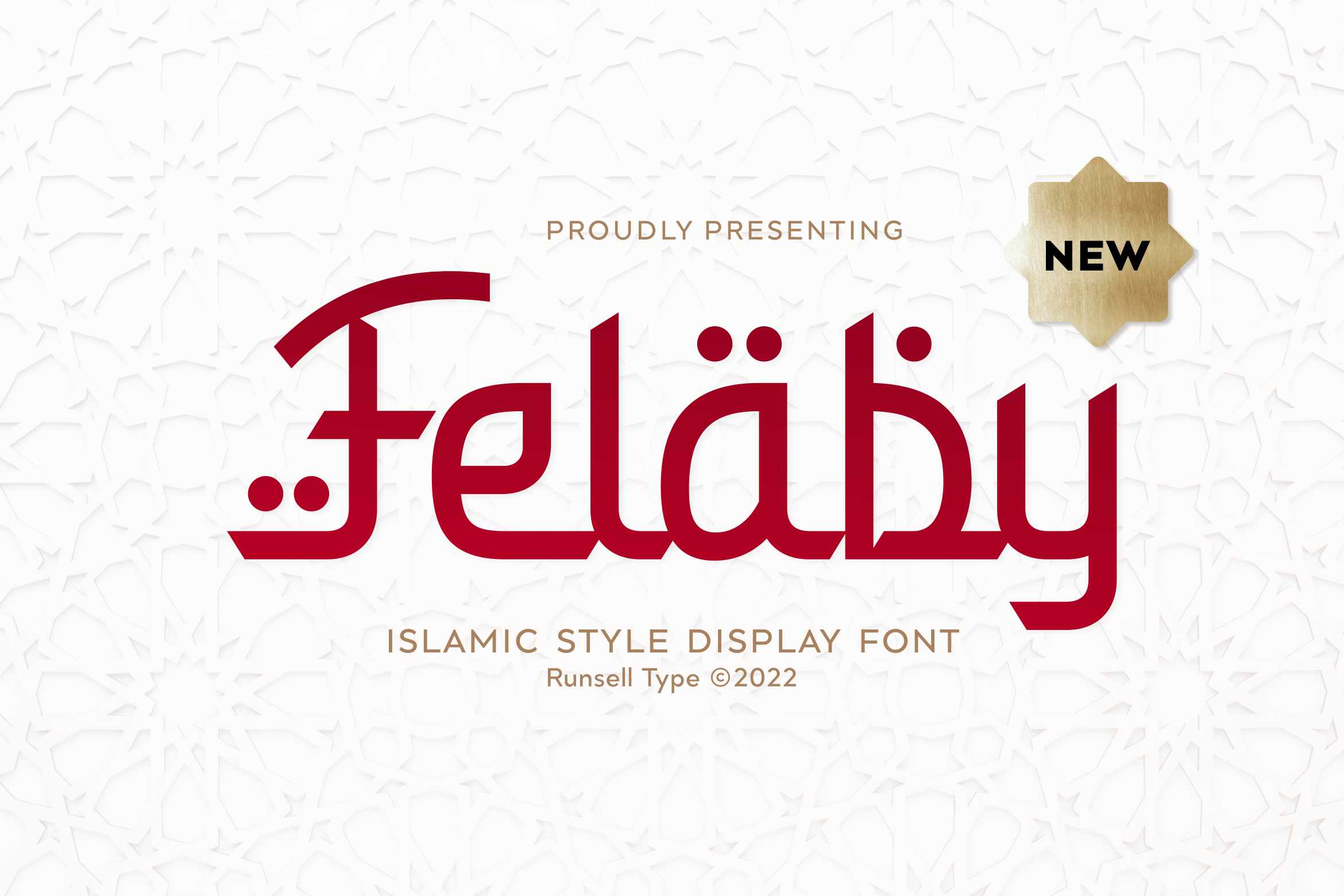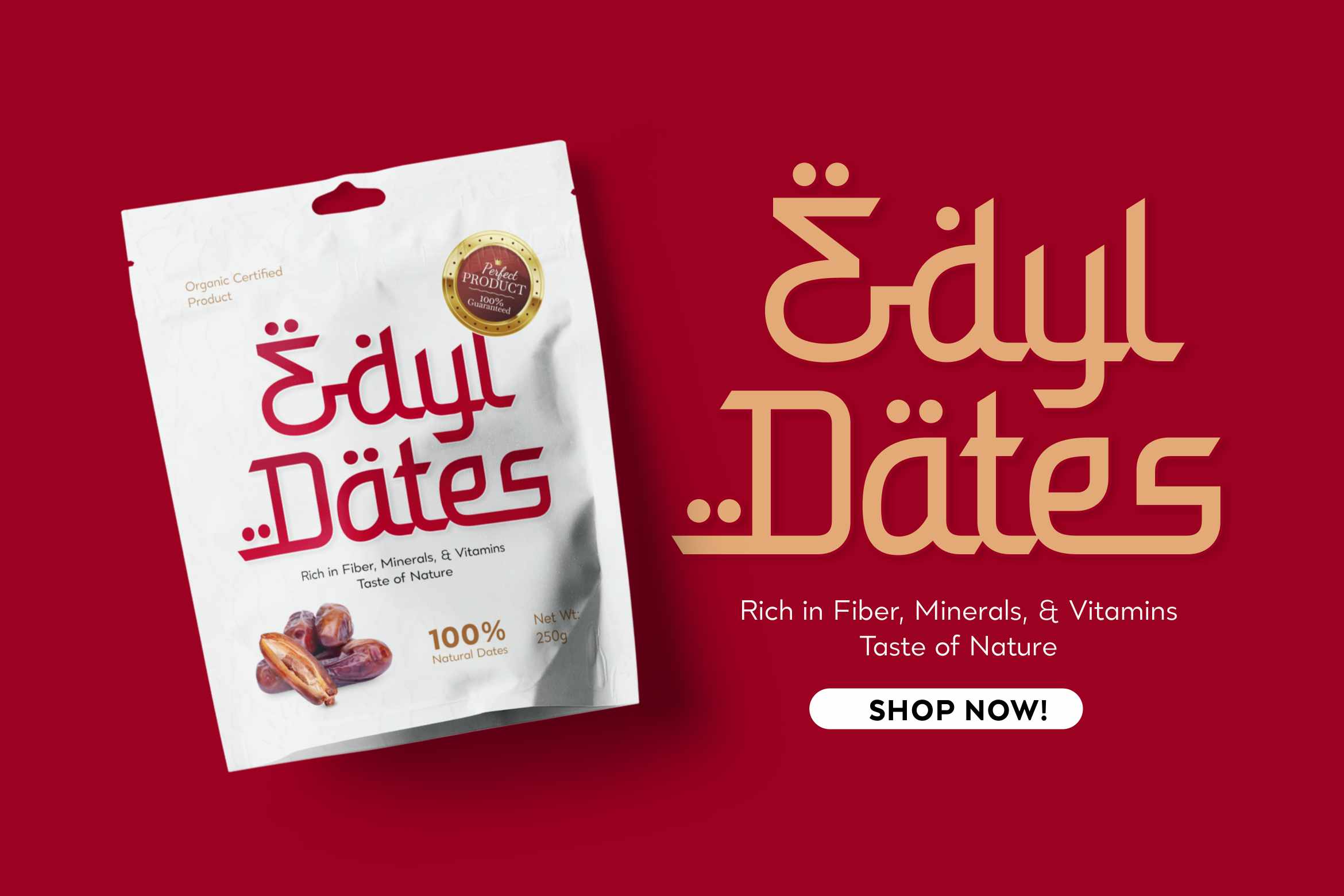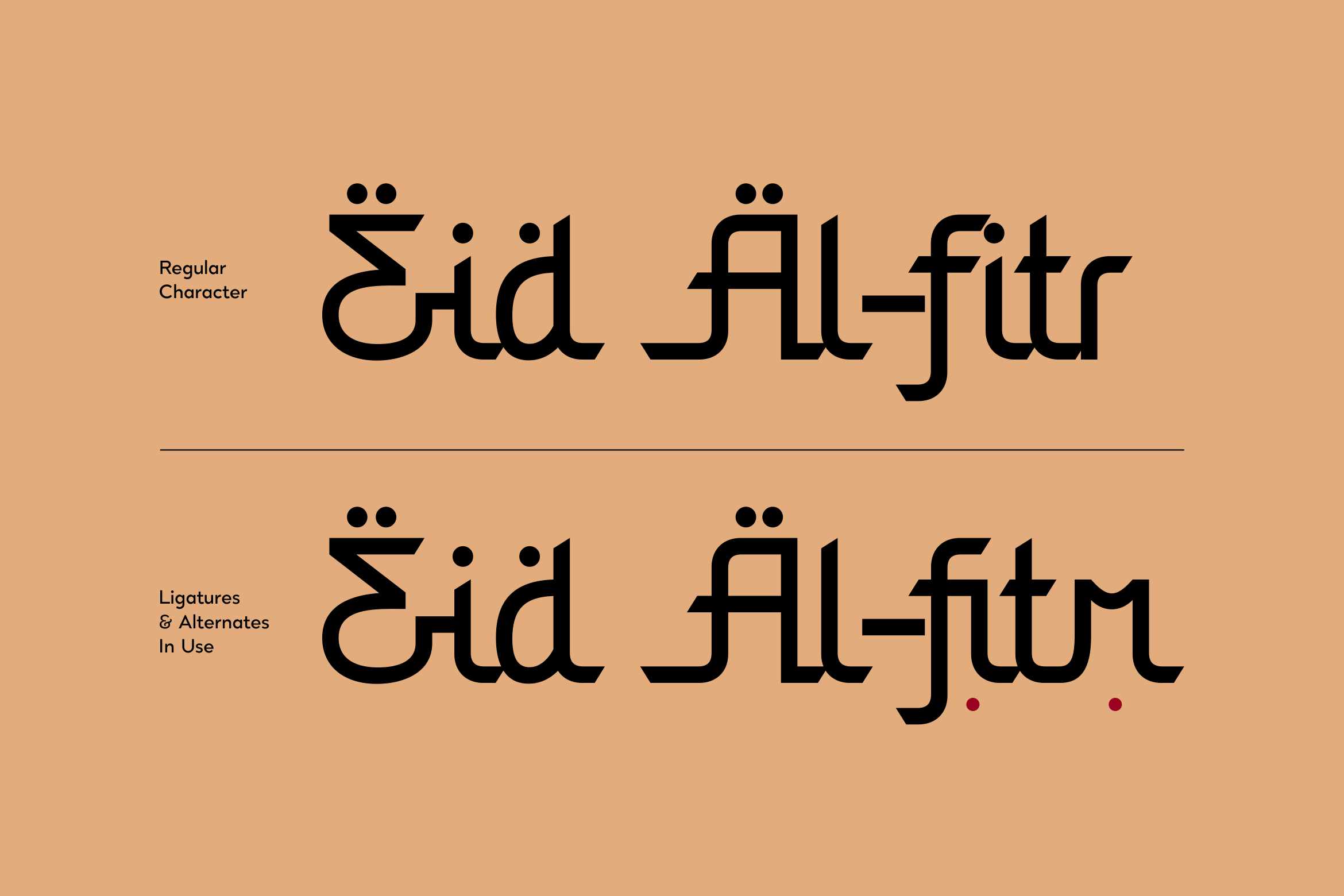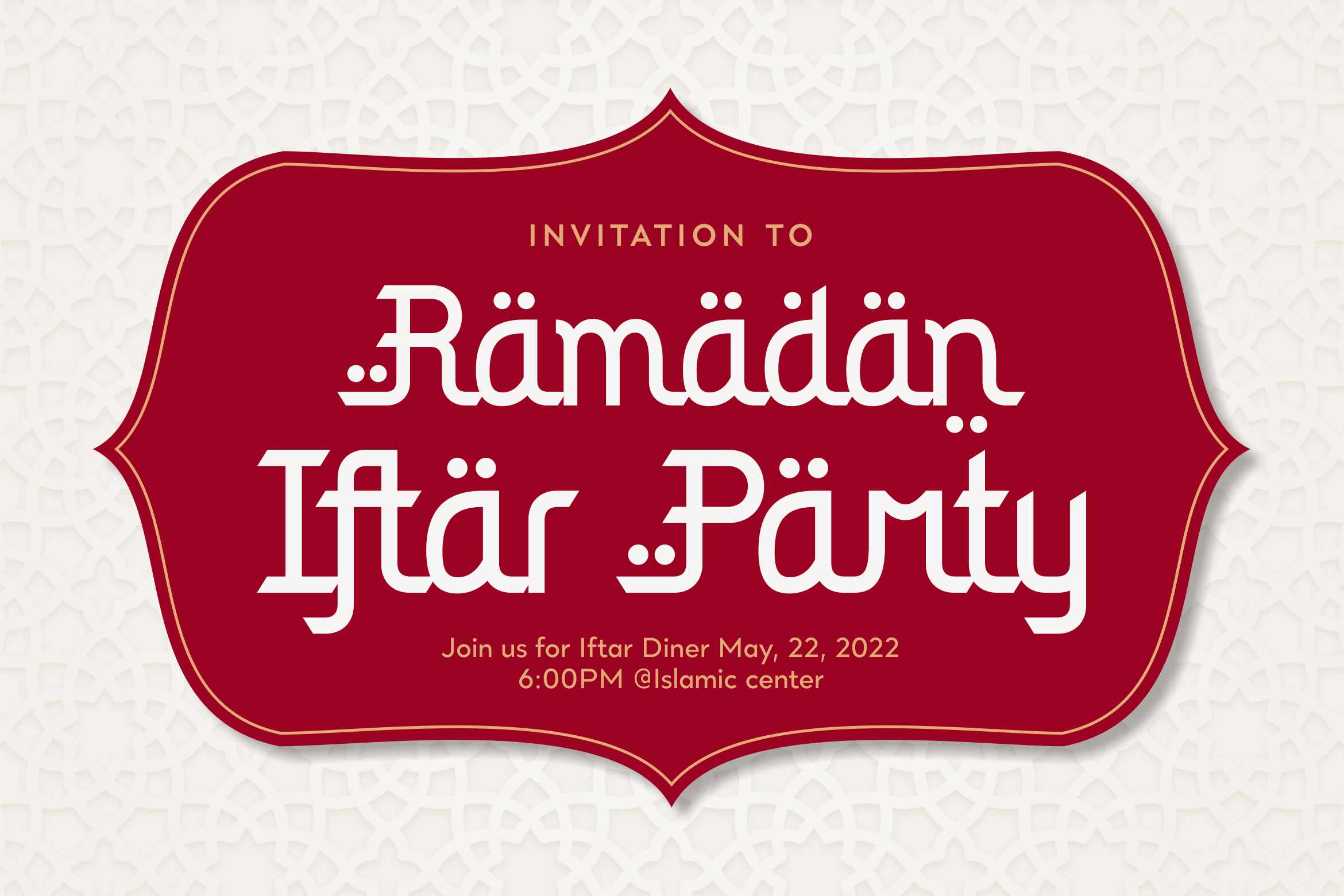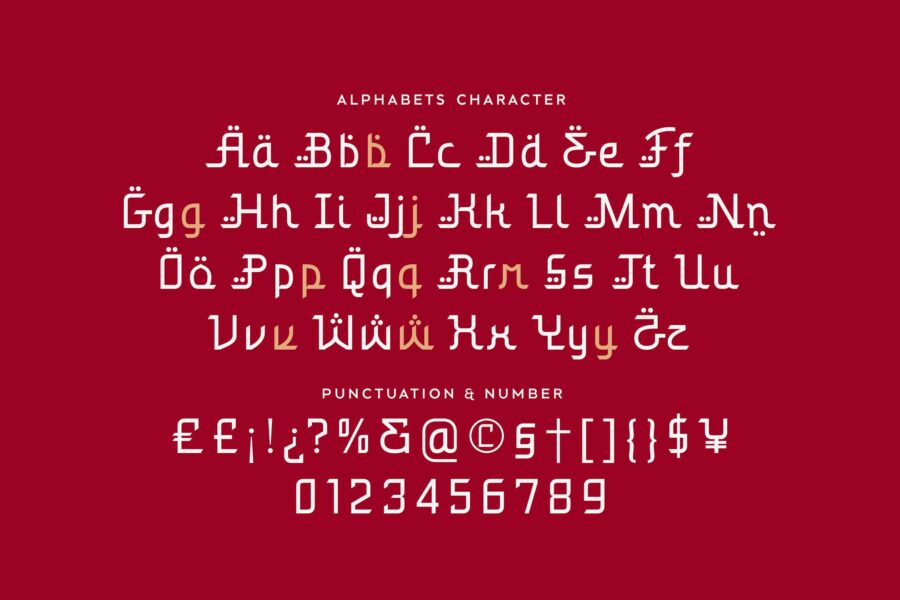
Felaby
Felaby is a stylish Islamic-style display font that combines geometric precision with decorative elements inspired by Arabic calligraphy. Each character is meticulously crafted with bold curves, linear balance, and rhythmic accents, creating a modern yet culturally rich aesthetic. Perfect for Ramadan promotions, Islamic product packaging, and spiritual invitations, Felaby radiates a sense of tradition fused with contemporary design.
With alternate ligatures and multilingual support, Felaby allows for versatile typographic expression. From elegant logos to festive event posters, this typeface brings cultural authenticity to every layout. Its clean yet embellished form makes it a standout choice for designers aiming to convey Islamic identity with clarity and creativity.